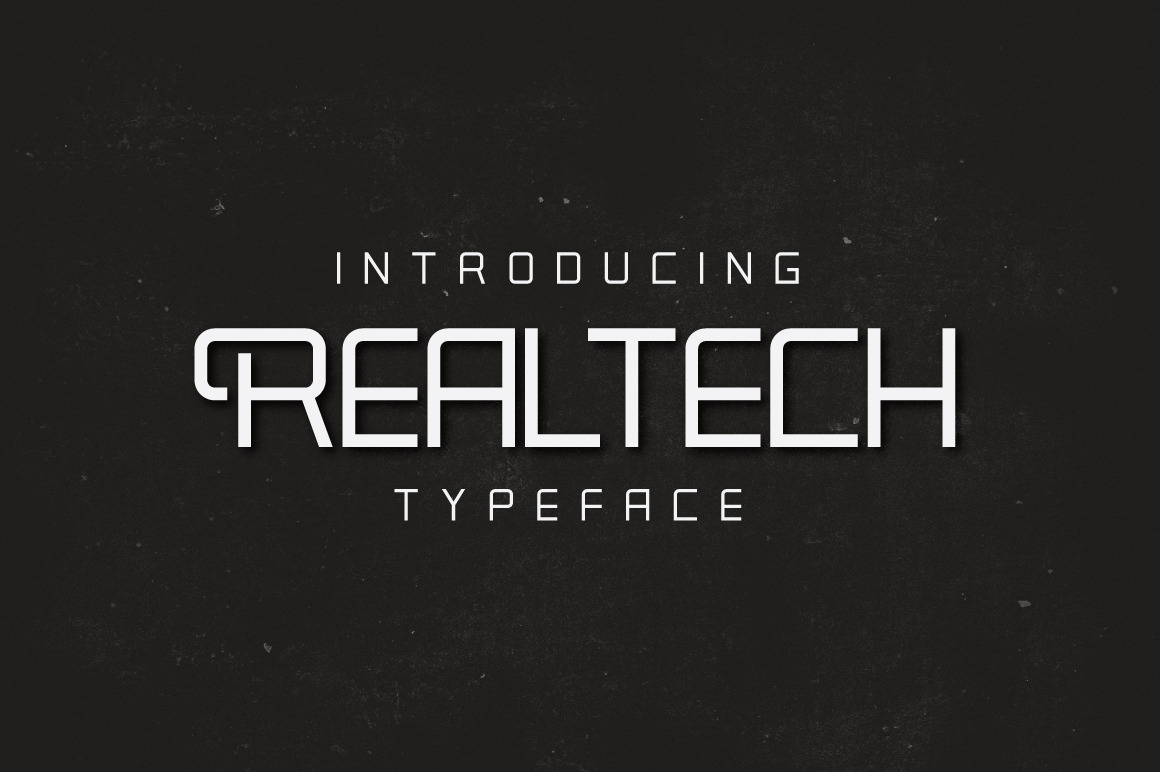
Realtech Typeface
Real Tech Typeface is a gorgeous sans serif font that will easily become a modern and classic typeface in your design work. The font is perfect for Labeling, Logos, Clothing, Movie titles, Flyer titles, gigs or album covers.